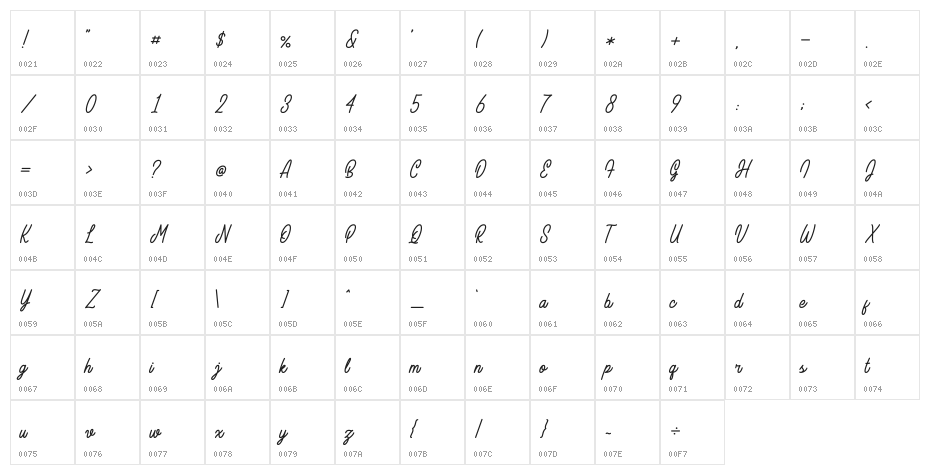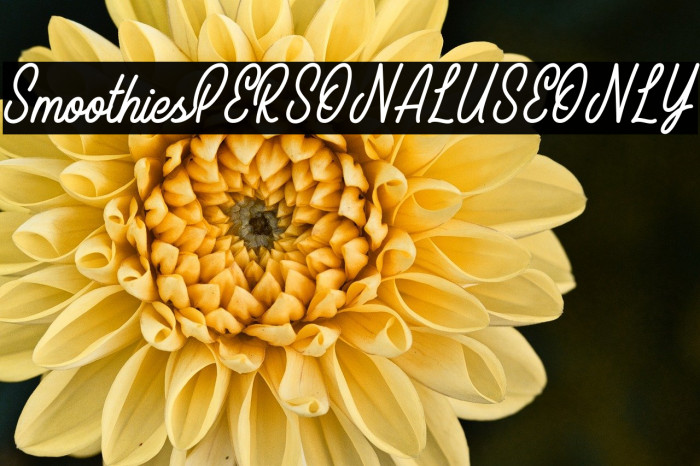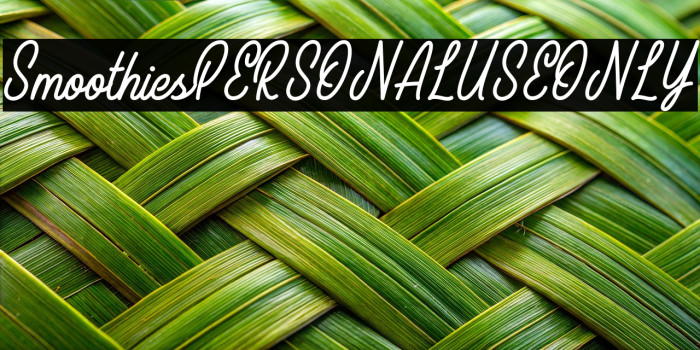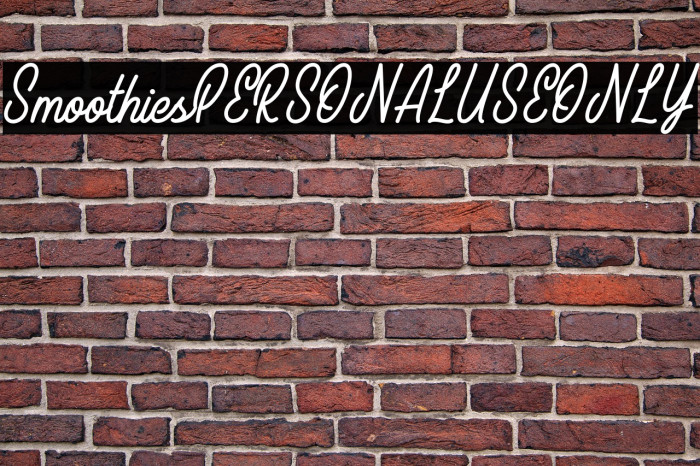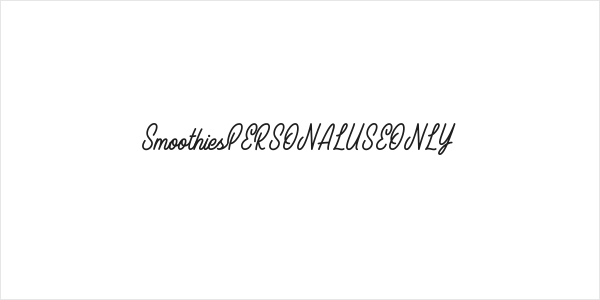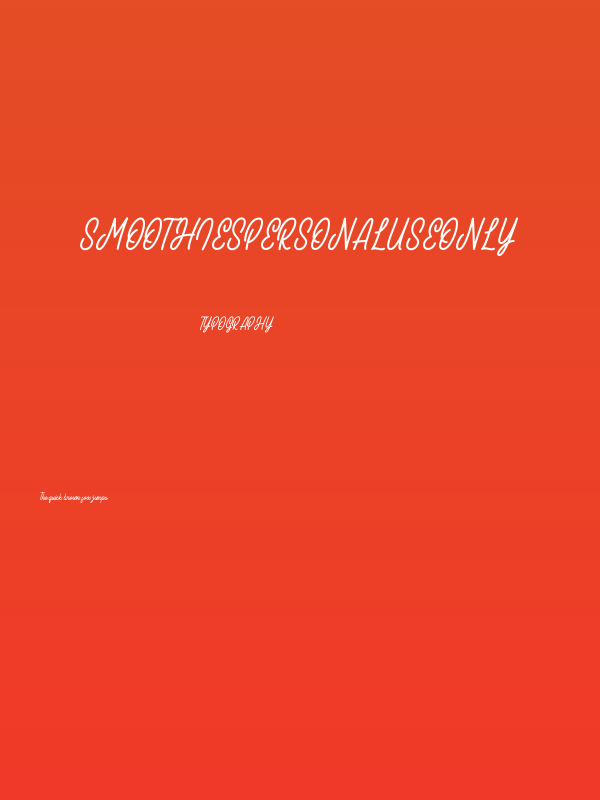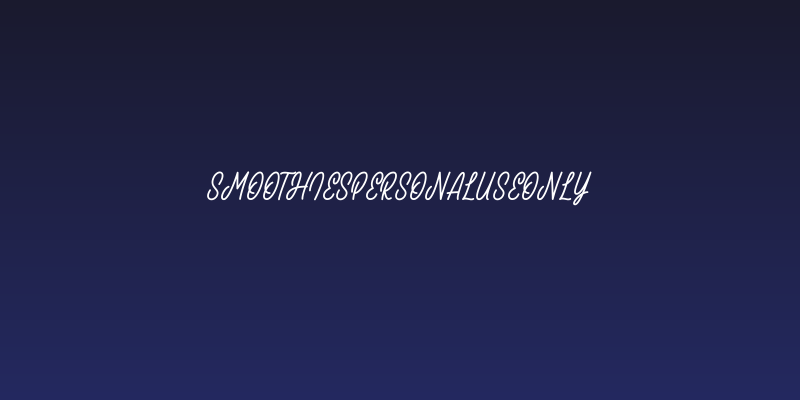
SmoothiesPERSONALUSEONLY Font
SmoothiesPERSONALUSEONLY Description
This font features a smooth, flowing script style that mimics the natural handwriting of a skilled calligrapher. The letters are elegantly connected, providing a sense of fluidity and grace. Uppercase letters stand tall with a slight slant, while lowercase letters maintain a consistent baseline, enhancing readability. The numerals are distinct and align well with the overall style, making them suitable for both decorative and practical uses. Special characters are thoughtfully designed, complementing the font's cohesive appearance. The overall impression is one of sophistication and charm, ideal for projects that require a personal touch.
| Proposed Projects | Ideal for wedding invitations, greeting cards, personal branding, and elegant packaging designs. |